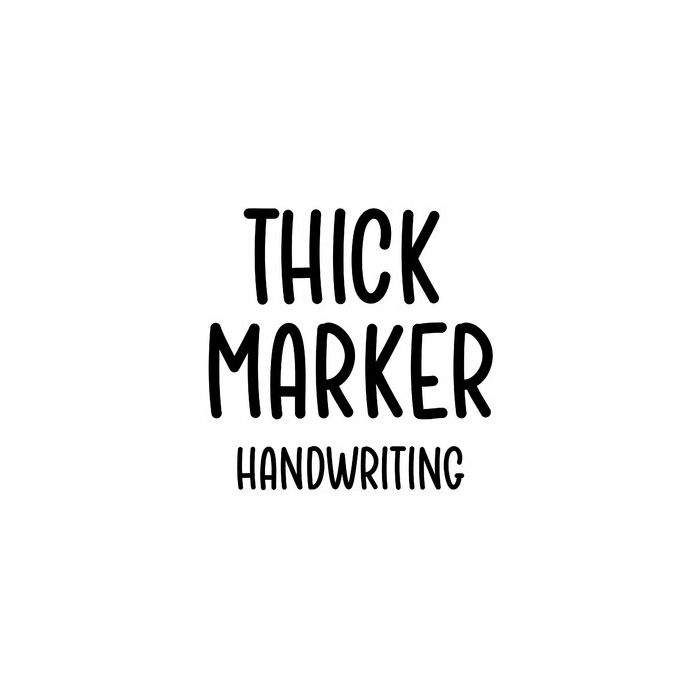
thick marker handwriting font
Cute marker font for Holiday crafts, monograms, cards, signs, labels, planners, notes, and projects. Includes alphabet, numbers, and punctuation.